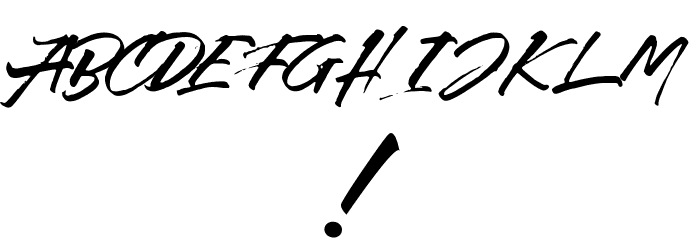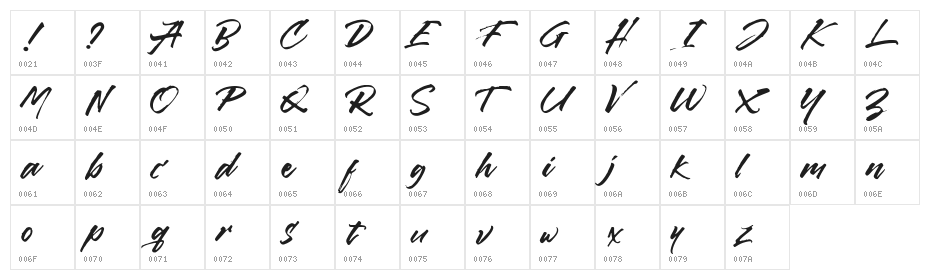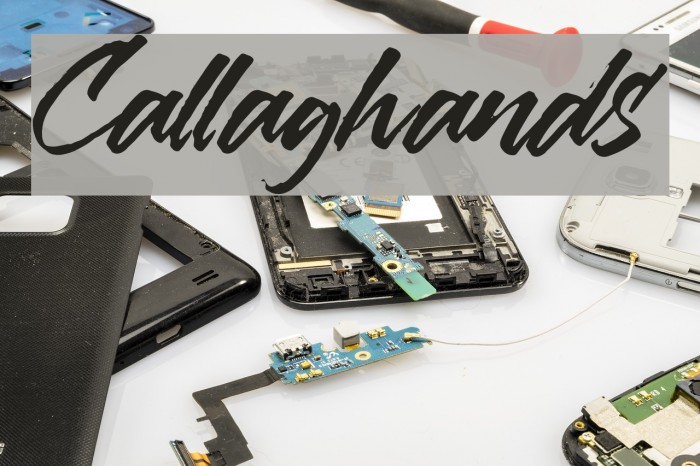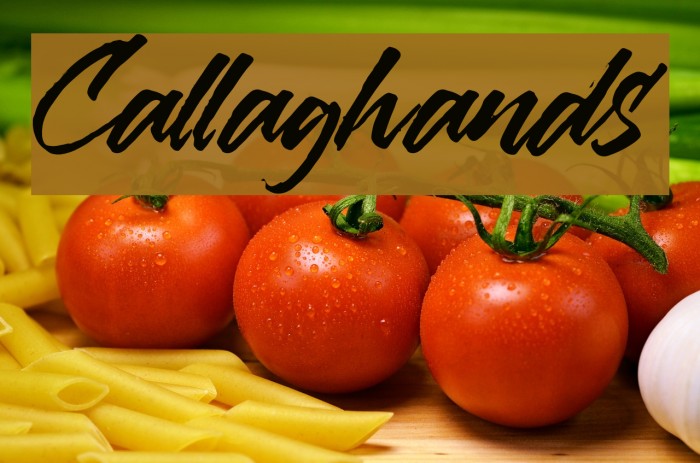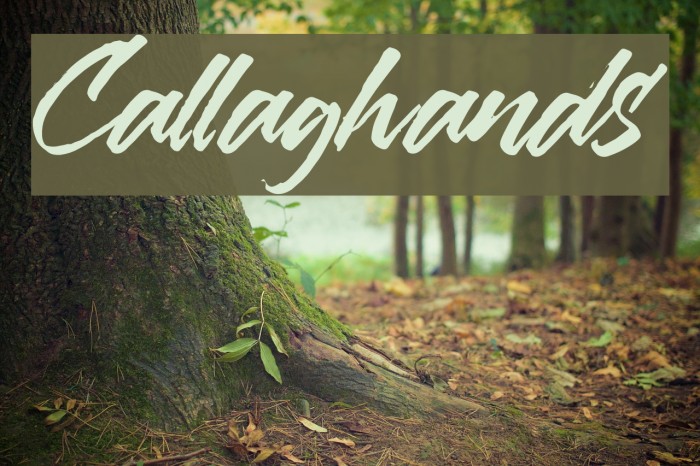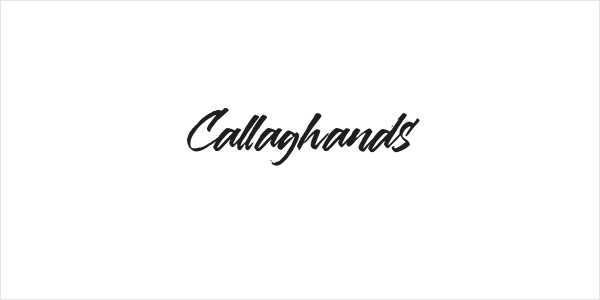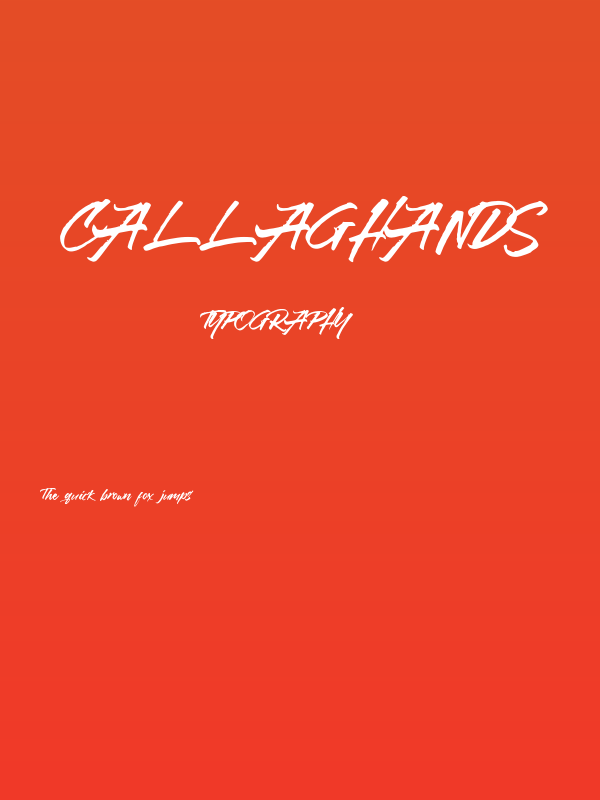
Callaghands Font
Callaghands Description
This font exudes a dynamic and energetic style, characterized by its bold, brush-like strokes that convey a sense of movement and fluidity. The letters are crafted with a sense of spontaneity, resembling the strokes of a calligrapher's brush, which gives it a personal and artistic touch. The uppercase and lowercase letters maintain a consistent style, with some letters featuring dramatic flourishes and others having a more restrained appearance. The overall impression is one of creativity and expressiveness, making it ideal for projects that require a personal or artistic flair.
| Proposed Projects | Ideal for artistic projects, branding, posters, and invitations that require a personal touch. |